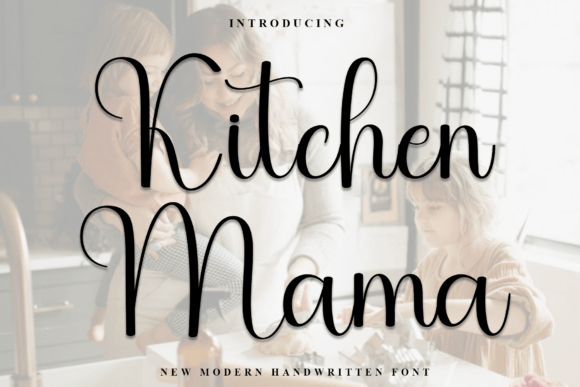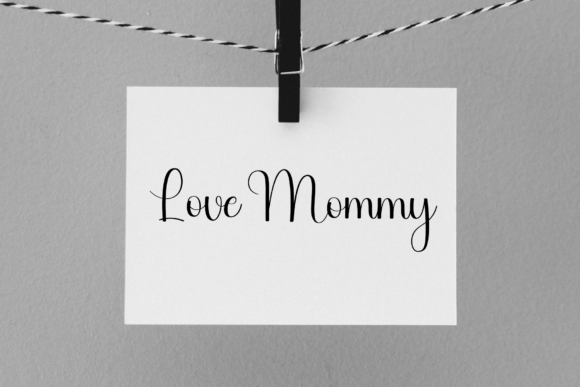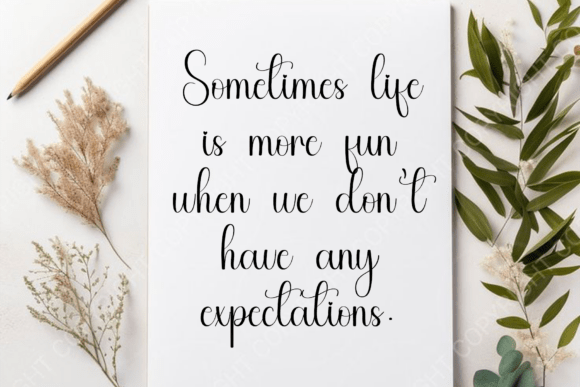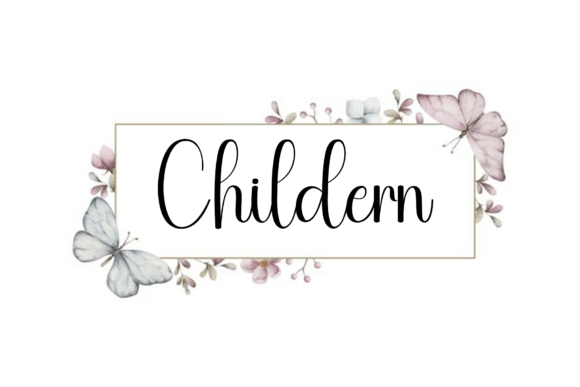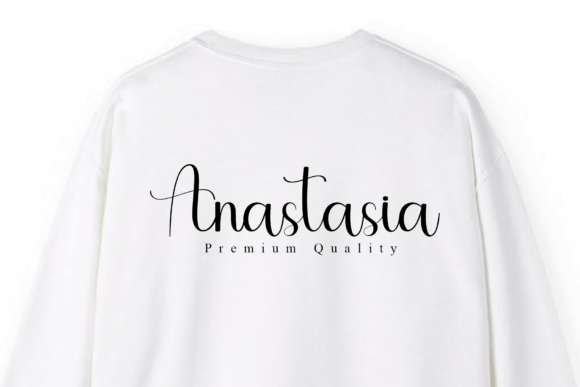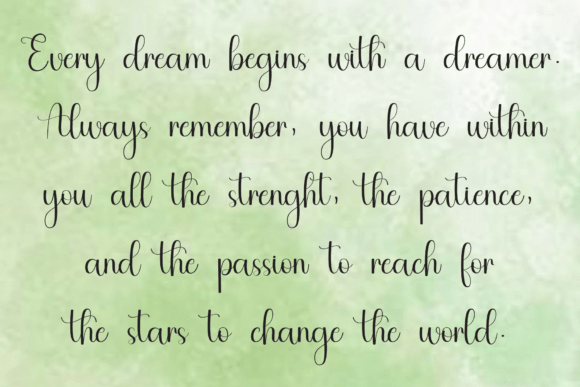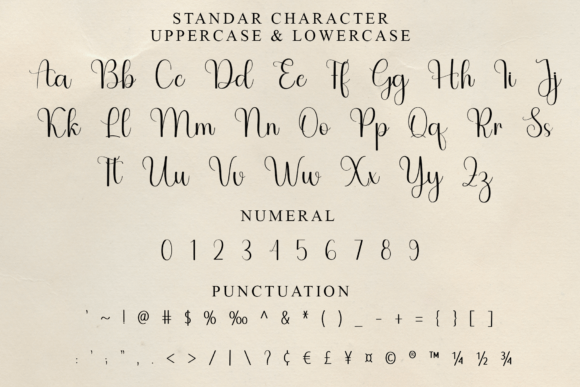
Where Creativity Meets Warmth: Introducing the Kitchen Mama Font
Do you remember that moment when you’re brainstorming ideas for your next creative project, and you stumble upon the perfect font that instantly sparks joy? For many designers, that moment is when they discover the Kitchen Mama Font. This charming font is designed to evoke a sense of warmth and friendliness, making it perfect for personal projects, invitations, and social media graphics.
With its round, playful strokes and hand-drawn aesthetic, the Kitchen Mama Font adds a unique touch to any design. Its versatility makes it a valuable asset for designers who want to create engaging and approachable content. Whether you’re working on a family blog, a foodie website, or a social media campaign, the Kitchen Mama Font is sure to bring a smile to your audience’s faces.
Kitchen Mama Font Key Features
- Unique Characteristic: Unique, cursive-like font with a playful, hand-drawn feel, making it perfect for cooking and food-related designs
- Font Weight: Available in Regular, Italic, Bold, and Bold Italic weights
Kitchen Mama Font Review
Overall, I’m impressed with the charm of Kitchen Mama Font. The designer has done a great job of capturing a unique and playful vibe that would be perfect for food-related branding or packaging.
- The font’s irregular, handwritten feel is well-suited for adding a touch of personality to kitchen-themed designs.
- The character set is comprehensive, with a wide range of glyphs and punctuation marks.
- The font’s OpenType features allow for some fun and creative effects, such as ligatures and swashes.
- The font’s inconsistent stroke widths and irregular letterforms may make it challenging to read at smaller sizes.
- The font’s playfulness may not be suitable for more formal or professional designs.
- The font’s lack of a clear, neutral version may limit its versatility in certain design contexts.
Overall, Kitchen Mama Font is a great choice for designers looking to add a touch of whimsy and personality to their kitchen-themed projects. While it may have some limitations, its unique charm and comprehensive character set make it a solid addition to any designer’s toolkit.
Getting the Most Out of the Kitchen Mama Font
To get the most out of the Kitchen Mama font, try the following:
Pair it with bold, bright colors to create a playful and eye-catching design.
Use it in combination with other fonts to create a unique and visually appealing typography.
Experiment with different font sizes and styles to add depth and interest to your design.
The Kitchen Mama font is perfect for:
Cookbooks and recipe cards
Food blogs and social media posts
Restaurant menus and signage
Any design that requires a playful and approachable tone
Alternatives to Kitchen Mama Font
Great Vibes Font is a modern script font that is perfect for creating a friendly and approachable atmosphere. It’s ideal for use in logos, headings, and titles in websites, magazines, and other publications. Great Vibes Font is a great alternative to Kitchen Mama Font as it offers a similar playful and casual feel, but with a more elegant and refined touch.
Playfair Display Font is an elegant and luxurious script font that is perfect for creating a sophisticated and high-end atmosphere. It’s ideal for use in luxury brands, high-end fashion, and other premium products. Playfair Display Font is a great alternative to Kitchen Mama Font as it offers a more refined and sophisticated feel, but with a similar sense of elegance and luxury.
Pacifico Font is a beautiful and elegant script font that is perfect for creating a relaxing and calming atmosphere. It’s ideal for use in beach-themed websites, travel brands, and other outdoor-related publications. Pacifico Font is a great alternative to Kitchen Mama Font as it offers a similar sense of elegance and sophistication, but with a more relaxed and casual feel.